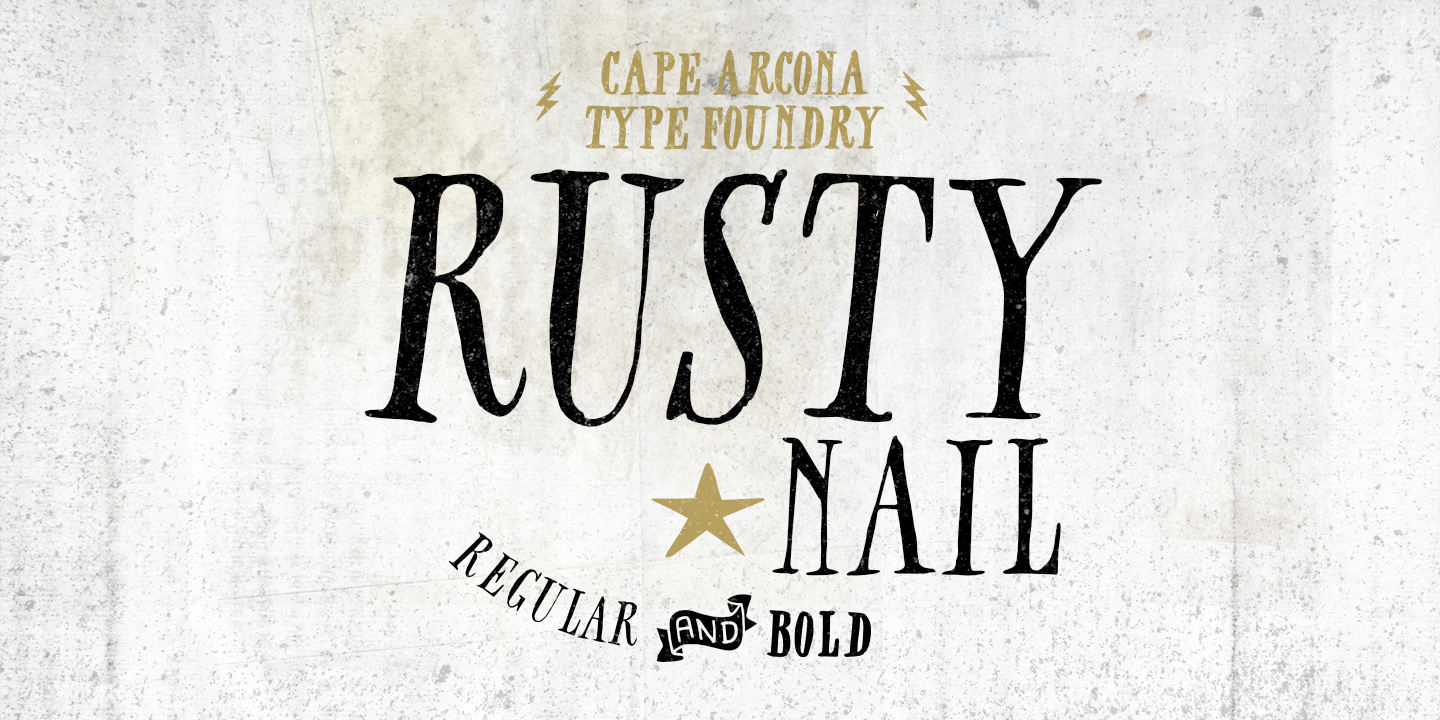
CA Rusty Nail Font is a strikingly textured, gritty, and incredibly authentic typeface, perfect for designs that aim to convey a sense of raw realism, industrial edge, and vintage ruggedness. Imagine it bringing a distressed, urban vibe to indie film posters, adding a worn, genuine feel to motorcycle club branding, or giving a unique, weathered identity to artisan workshop signage. It’s an exceptional choice for designing powerful music album covers, crafting impactful streetwear apparel, personalizing unique bar and restaurant menus, and enhancing any project where a sense of history, bold character, and unpolished charm is desired. Its distinctive texture and sturdy presence make it suitable for anything from dark comic book titles to rebellious brand identities, adding an immediate sense of visceral authenticity.
What makes CA Rusty Nail Font truly exciting is its remarkable ability to combine a powerful, almost aggressive presence with an organic, distressed finish that perfectly mimics the look of aged metal. It possesses an inherent tactile quality that feels genuinely corroded or worn, avoiding the sterile perfection of purely digital fonts. Designers are often drawn to its raw energy, the subtle imperfections, and the authentic texture that gives each character a unique, rusted appeal. It’s a font that communicates with a sense of honesty, durability, and a no-nonsense attitude, ensuring your message feels authentic and strikes hard. CA Rusty Nail Font brings a visceral, unrefined charm to your designs, allowing them to connect with audiences who appreciate bold, unconventional aesthetics and a touch of industrial grit.
The CA Rusty Nail Font family typically offers a range of styles and features that enhance its versatility for various creative applications. While specific family members might vary, you can often expect a singular, impactful Regular weight that embodies its signature textured, rugged appearance. Given its specialized nature, CA Rusty Nail Font families might also include variations in the intensity of the distress, alternative characters for stylistic diversity, or even multilingual support to extend its gritty appeal globally. These features enable designers to create highly personalized text, ensuring that CA Rusty Nail Font can adapt to intricate design requirements while maintaining its aggressive, expressive character across various applications and sizes.